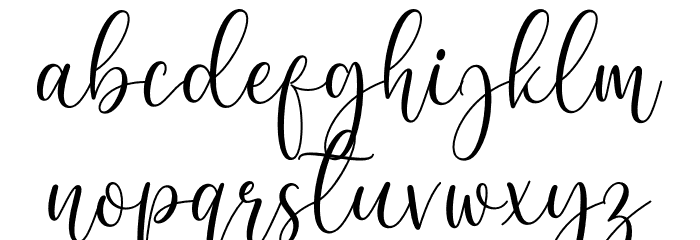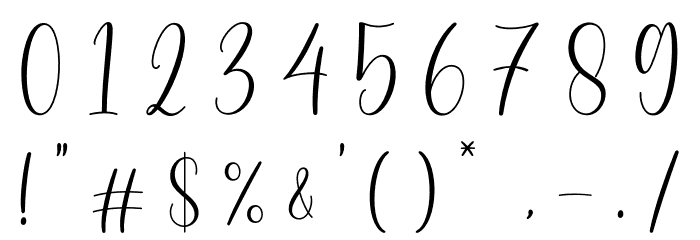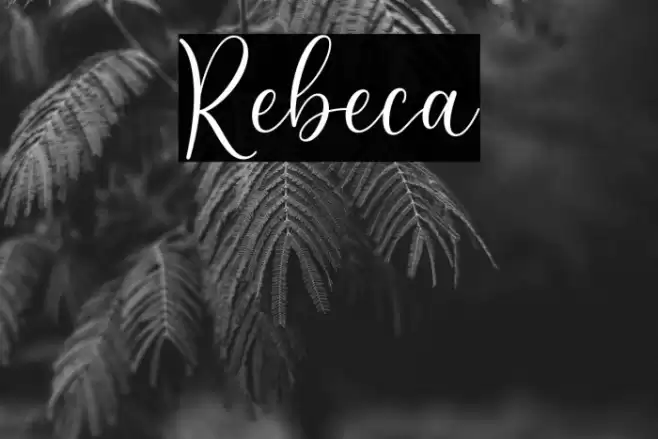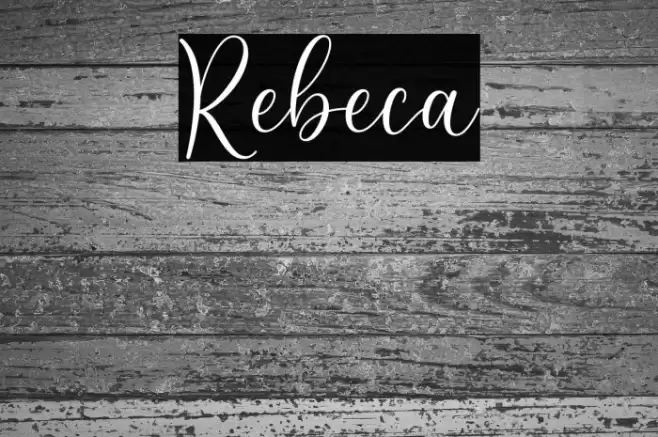
Rebeca Font
This font features an elegant, flowing script style that mimics the fluidity of natural handwriting. The uppercase letters are tall and slender with graceful loops and curves, while the lowercase letters maintain a consistent, smooth flow with a slightly more compact form. The numerals are distinct and maintain the same elegant style, ensuring readability. The special characters are thoughtfully designed to complement the overall aesthetic, making them suitable for decorative purposes. The font's overall appearance is both sophisticated and approachable, making it ideal for a variety of creative applications.
An elegant, flowing script font with a natural handwriting style.
- Font: Rebeca
- Proposed Projects: Ideal for wedding invitations, greeting cards, branding, and logo design.
- Category: Script
- Overall Style: Elegant, Decorative
- Use Case: Logos, Invitations, Decorative text